Choosing between two large texture font design asset collections can be tricky when both promise to improve your creative work. The Ultimate Creative Master Collection is a general-purpose resource library, while the 25,000+ Premium Fonts Bundle zeroes in on typefaces. The decision comes down to whether you need a broad design toolkit or a massive font catalog, and how that fits the projects you actually make.
Where Each Product Wins
- Ultimate Creative Master Collection: Wins for creative generalists who need mockups, icons, fonts, sound FX, presets, templates, and effects in one place. Its description mentions compatibility with Photoshop, Illustrator, After Effects, Premiere Pro, Canva, PowerPoint, and CorelDRAW, making it a flexible resource for branding, social media, print-on-demand, and client projects.
- 25,000+ Premium Fonts Bundle: Wins for typography-focused work. It's positioned for logos, T-shirts, business branding, wedding invitations, social media graphics, websites, laser engraving, and print-on-demand. If the job is finding the right font, this bundle is the dedicated match.
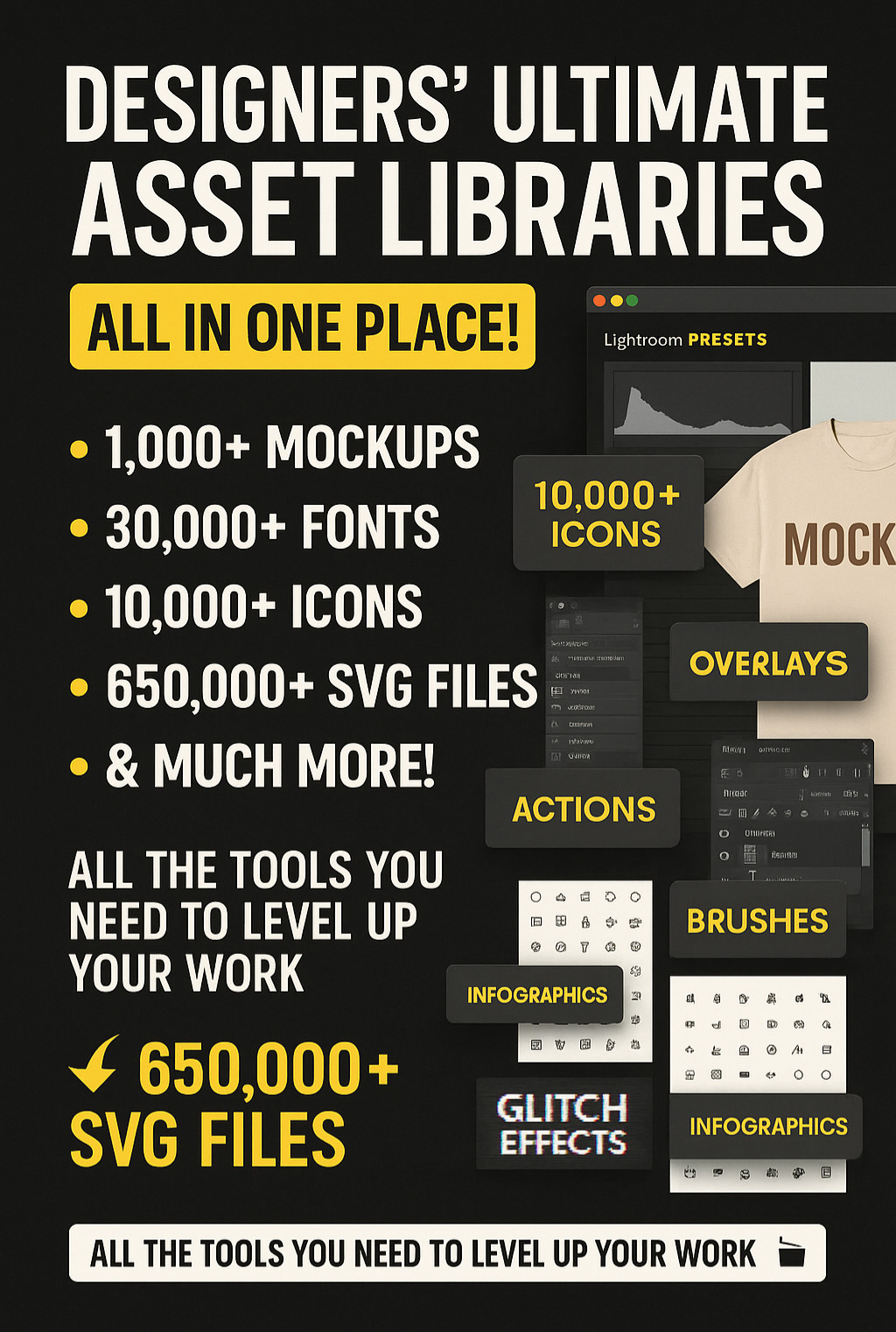
This collection is described as an all-in-one creative resource library with thousands of professional digital assets, including mockups, fonts, SVGs, overlays, presets, templates, effects, and more. It mentions support for multiple design tools, so it's a natural fit for designers, editors, marketers, and content creators who need a wide variety of assets for branding, social media, print-on-demand, and client projects. The reason to choose it is the breadth: you get not just fonts but also design elements and presets in a single download, with a listed price that sits lower in this pairing. The limitation is that fonts are only one part of the mix, so if you need a deep type collection, the font count here is not the focus.
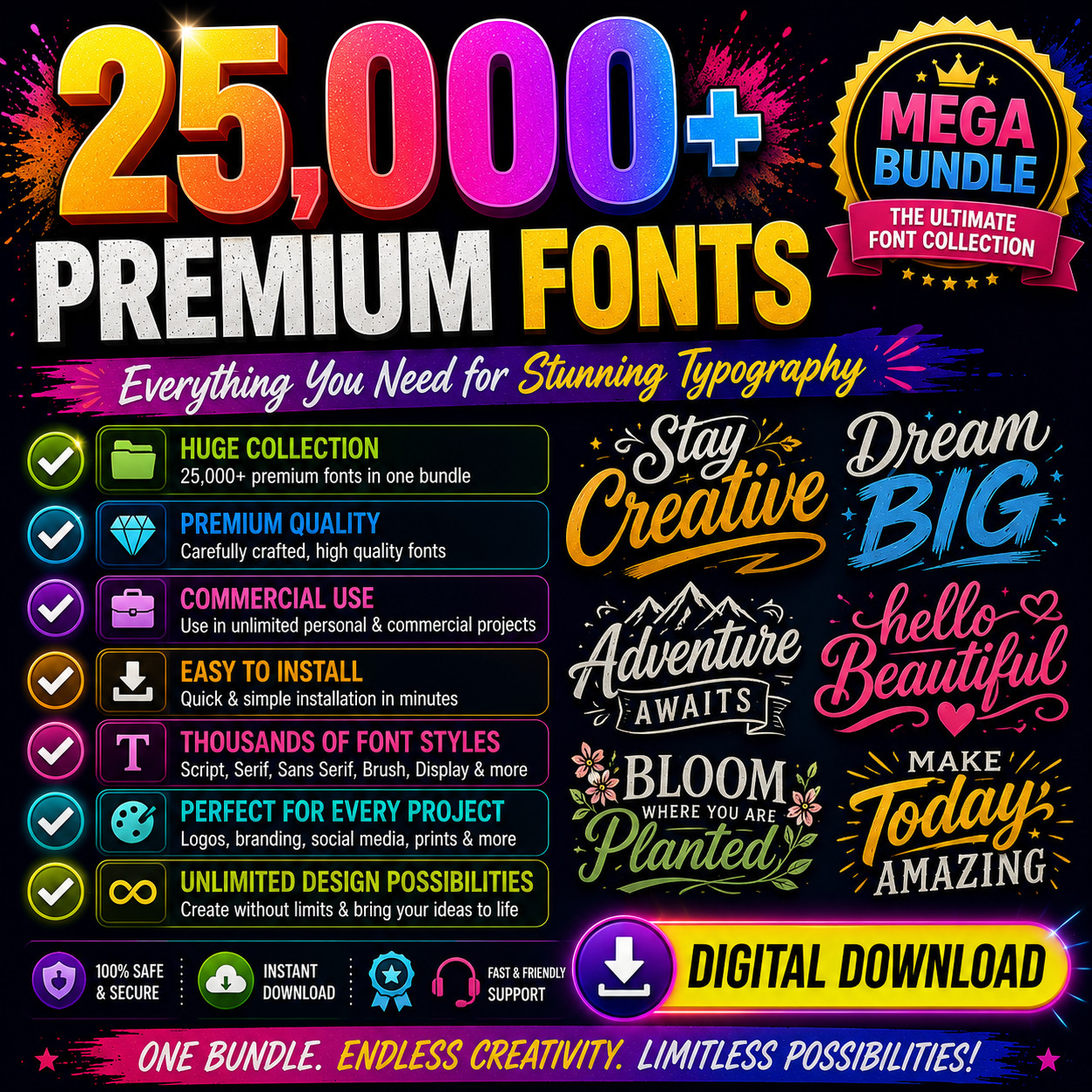
This mega bundle contains 25,000+ curated fonts spanning script, serif, sans-serif, display, brush, handwritten, signature, vintage, modern, logo, decorative, monogram, and calligraphy styles. The description connects it to commercial use and calls out specific applications like logos, T-shirts, business branding, wedding invitations, social media graphics, websites, laser engraving, and print-on-demand. The reason to choose it is the scale and type-only focus: you're getting a very large font library instead of a general asset pack. The limitation is that you won't find mockups, templates, overlays, or presets here; this download is specifically about the fonts themselves and is the higher listed-price option in this comparison.